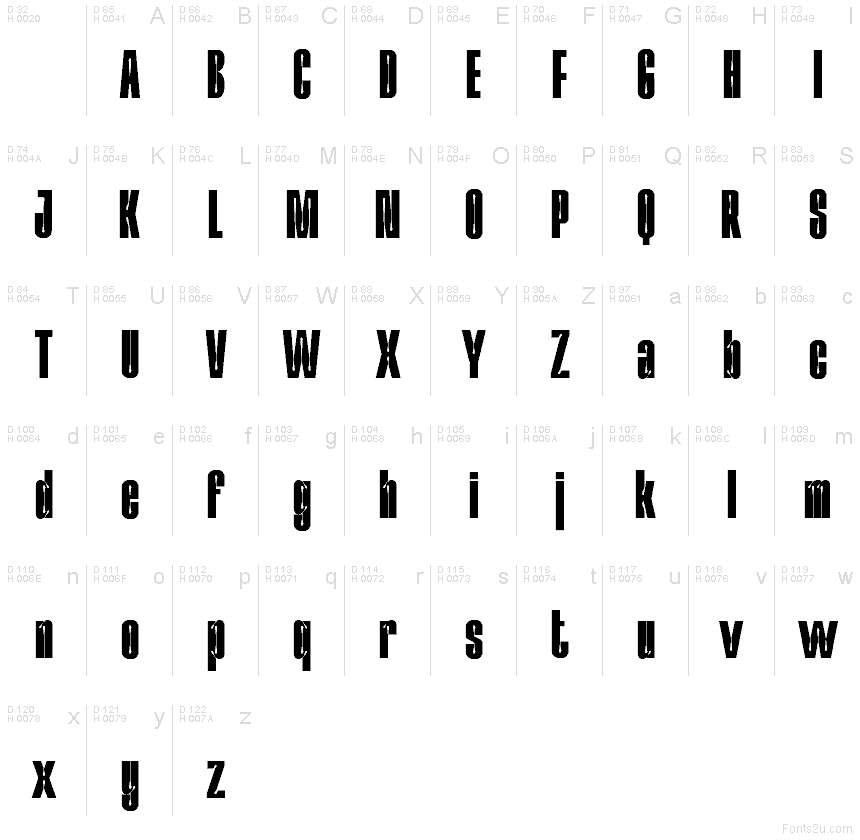
CS Maiden Regular Demo
CS Maiden font by Craft Supply Co. is a contemporary example of fluid and structured geometric shapes. This artistic display font has a condensed shape with outstanding appearance, creating a strong visual presence across various mediums. The impactful and industrial style of this font is expressed through the attention-grabbing letters with large sharp curves.
With 1960s retro influences used from the start of its design process, CS Maiden has all it takes to be a great styling tool for your works as branding designs, posters, headlines, advertisements, print designs, magazines covers and pages, invitations, flyers etc.